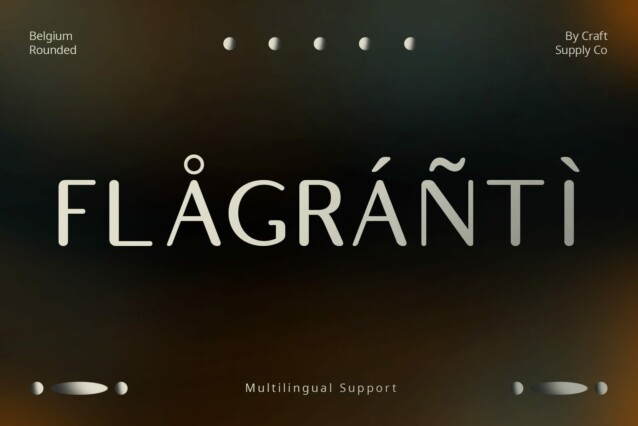
Belgium Rounded Font
Belgium Rounded Font: The Modern Sans Serif. Contemporary Charm Belgium Rounded exudes a modern vibe with its sleek sans serif style and rounded stem endings. Its design reflects contemporary aesthetics, perfect for a wide range of projects.
Friendly and Approachable The rounded stem endings of This font lend a friendly and approachable feel to the font, making it ideal for creating welcoming and inclusive designs.